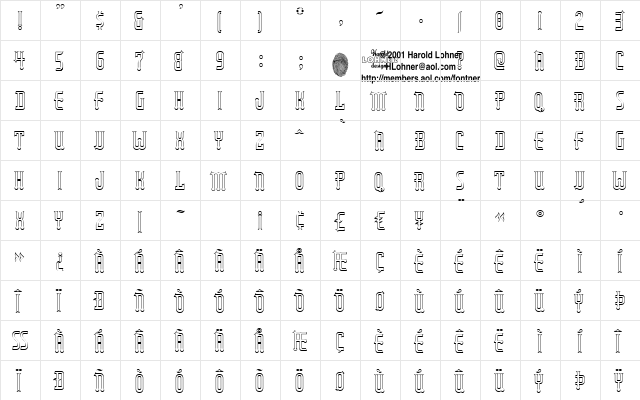
RubaiyatOutline Regular
Design Context for RubaiyatOutline Typeface
RubaiyatOutline brings ornamental detail and strong personality to headlines and identities, where visual impact matters more than quiet functionality.
Font Pairing: Pair with a clean neutral sans-serif for body copy to let RubaiyatOutline's character lead without overwhelming the composition.
Pro Tip: Treat RubaiyatOutline as the centrepiece of your typographic hierarchy. One strong heading set in a decorative face can carry an entire layout.